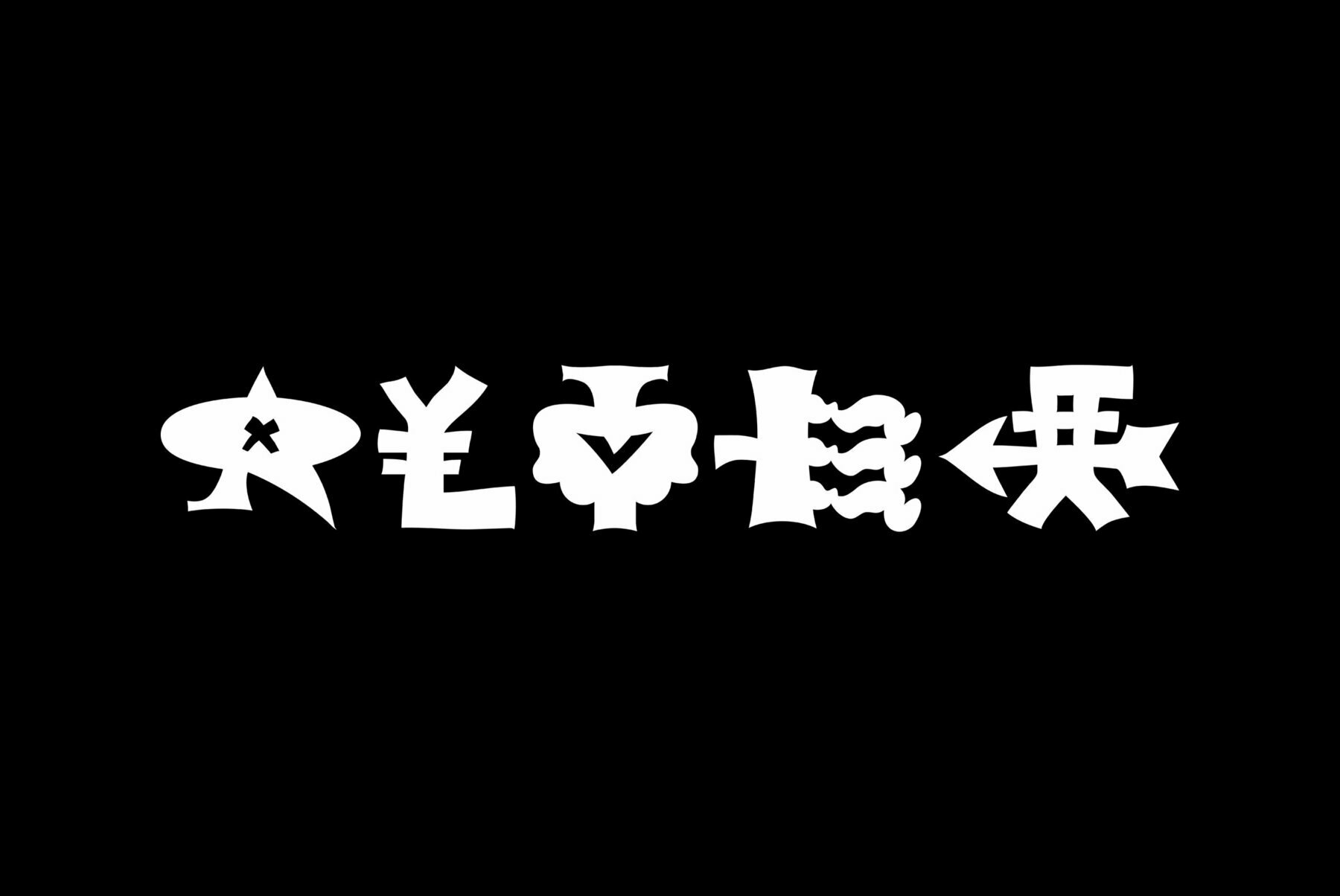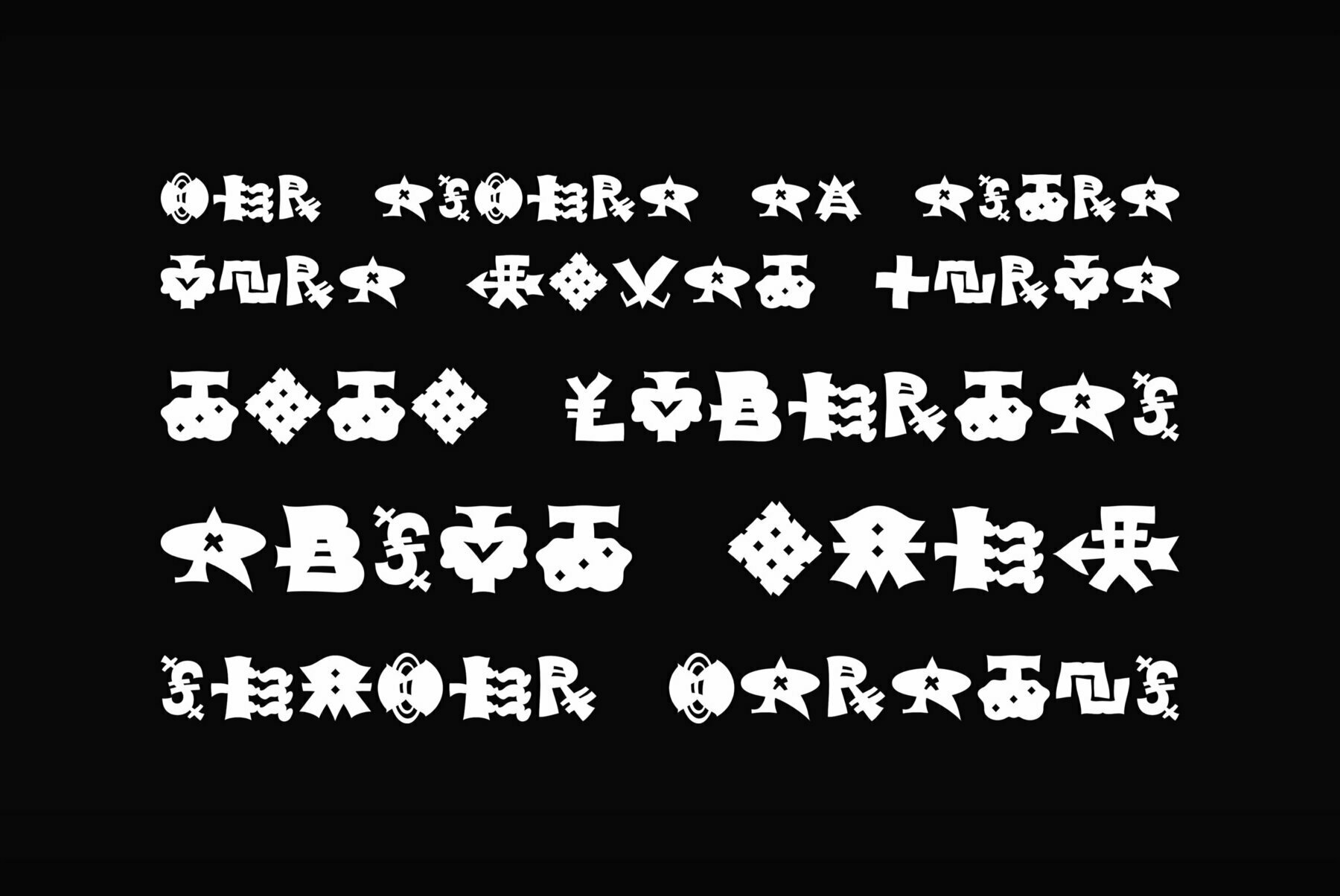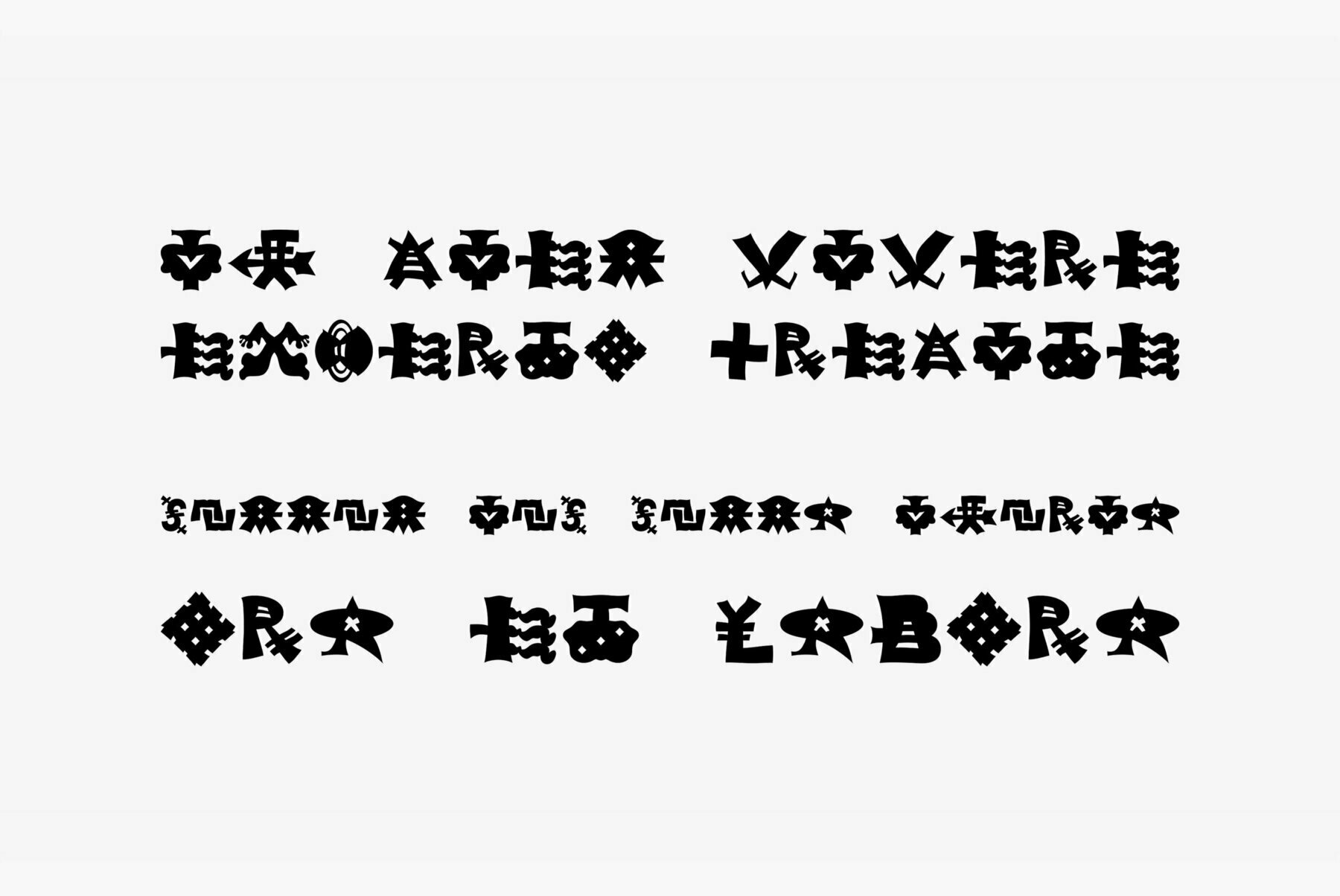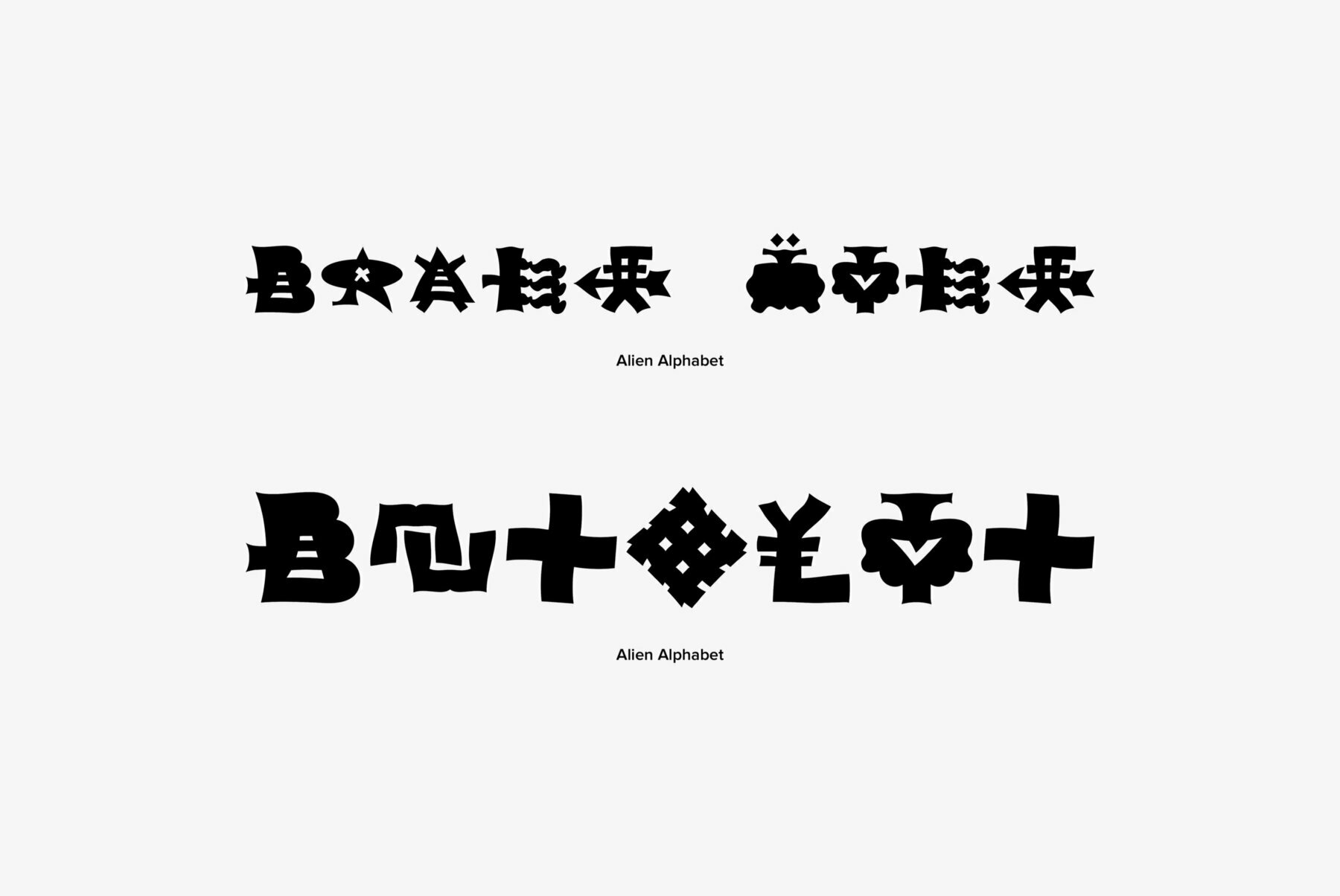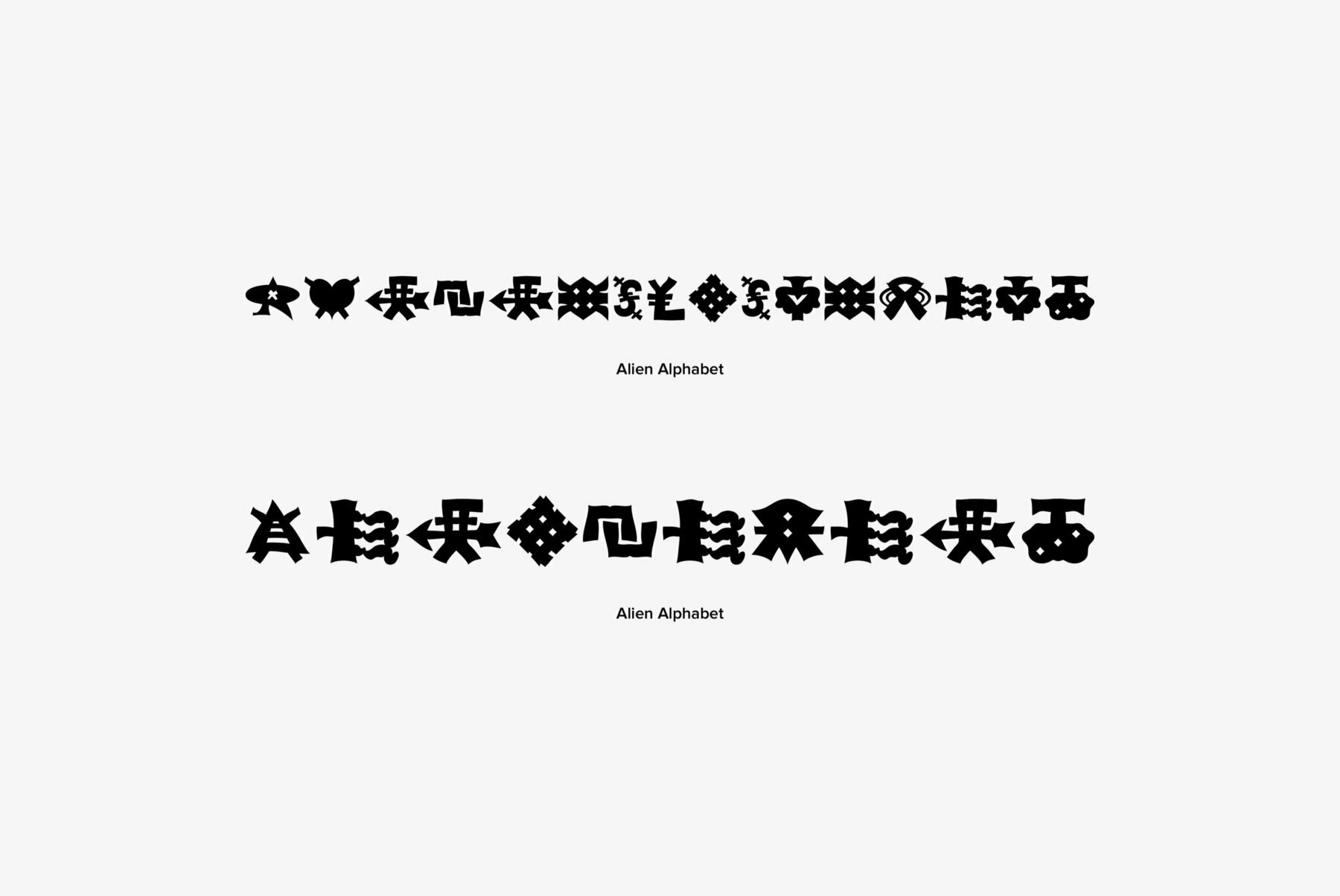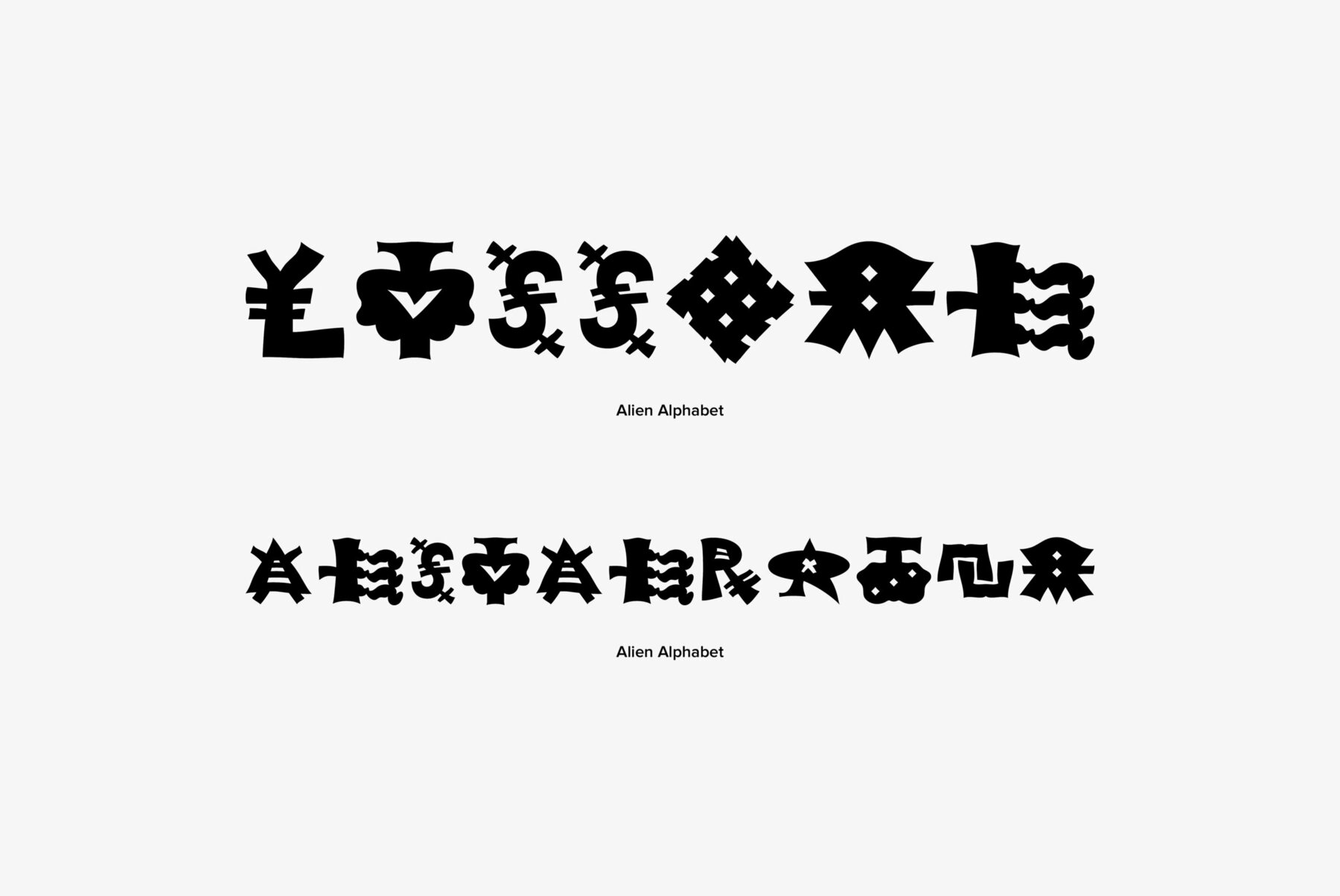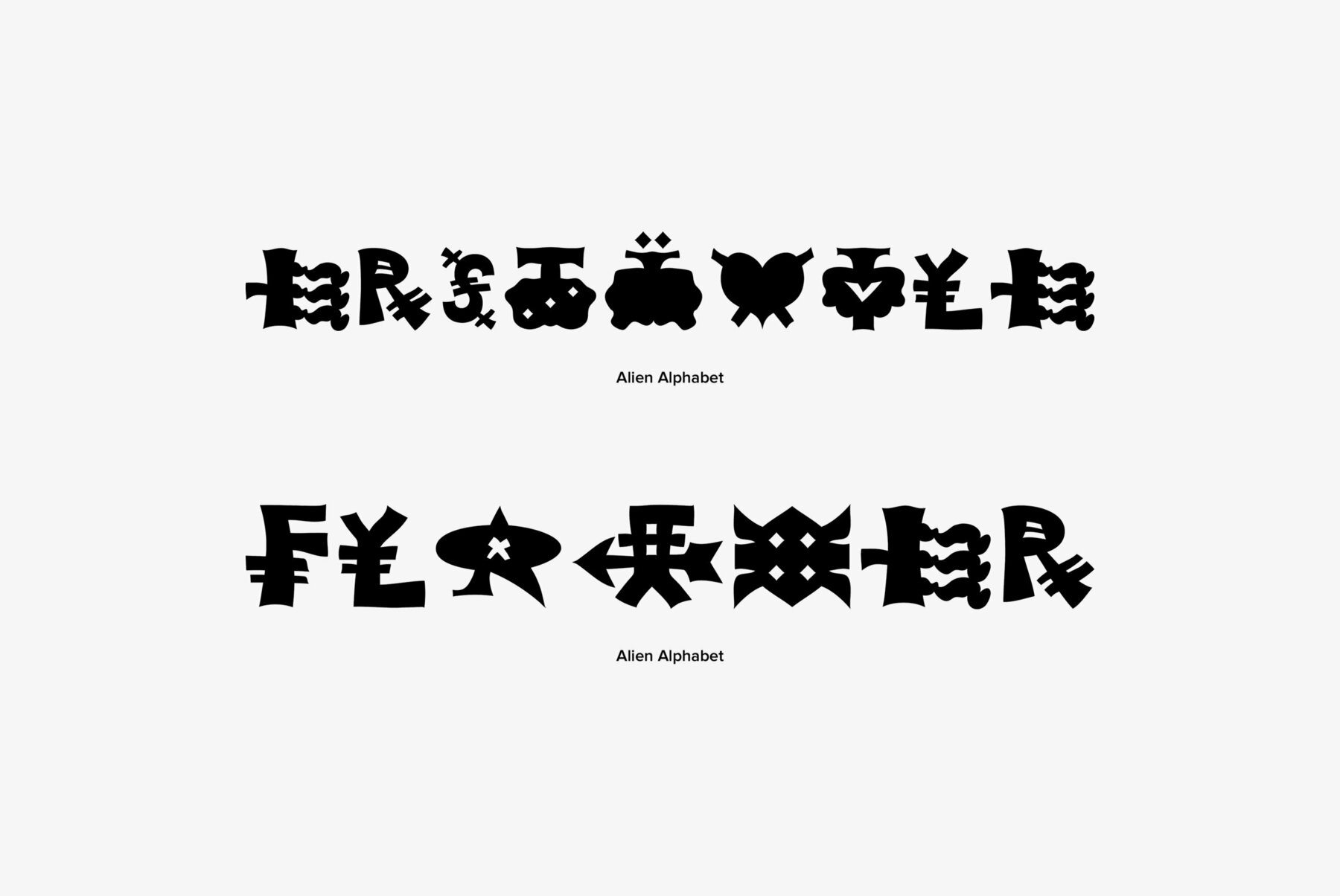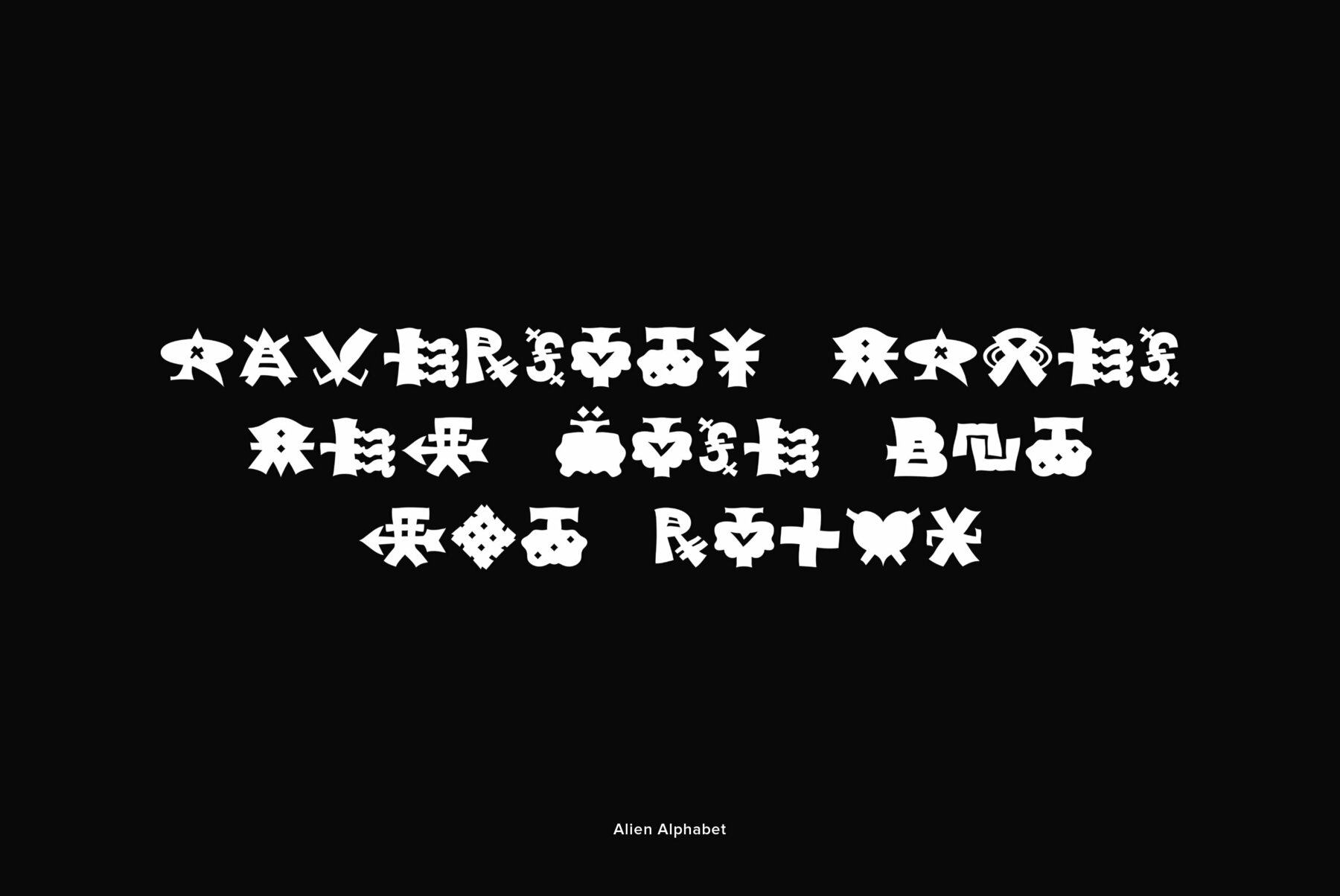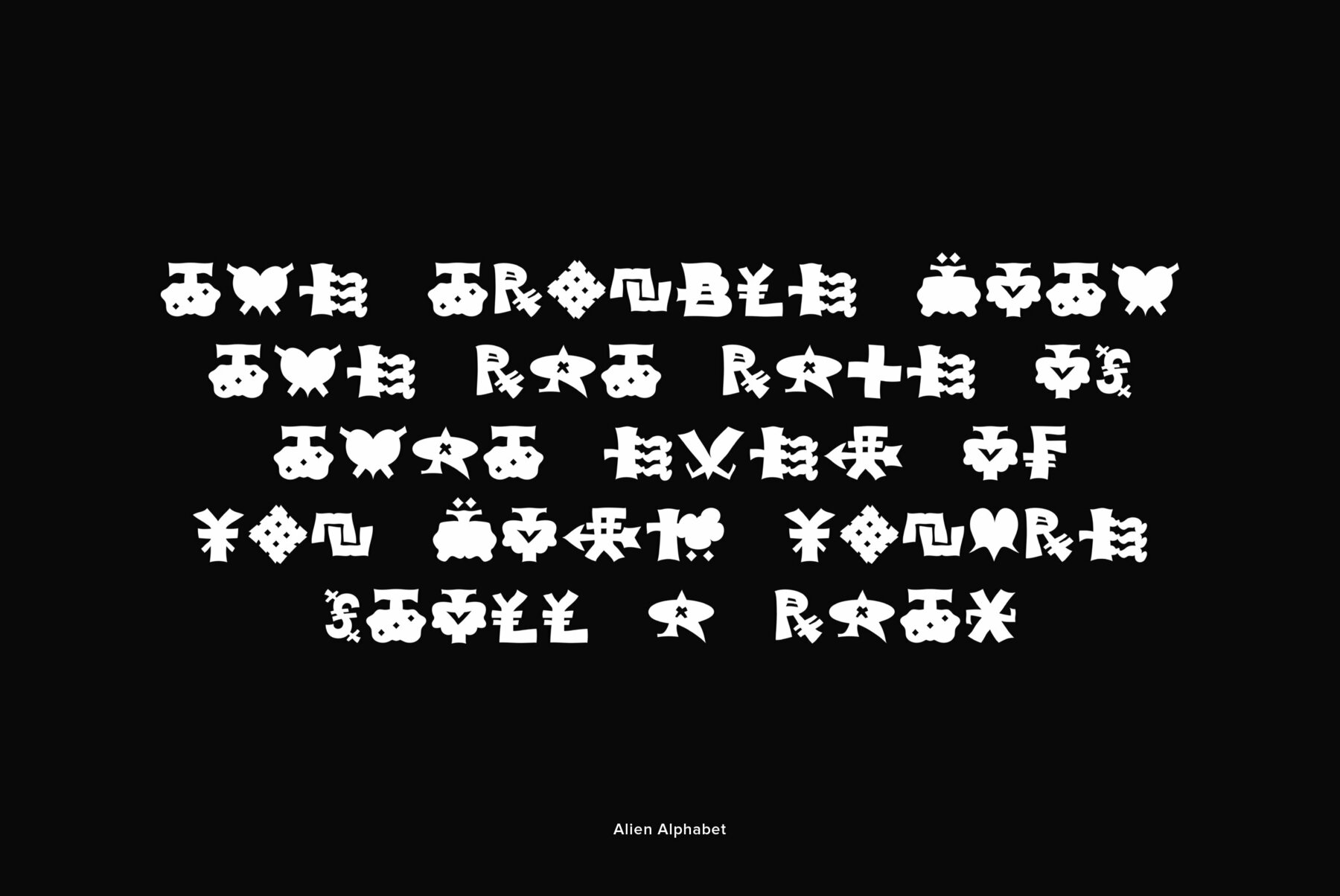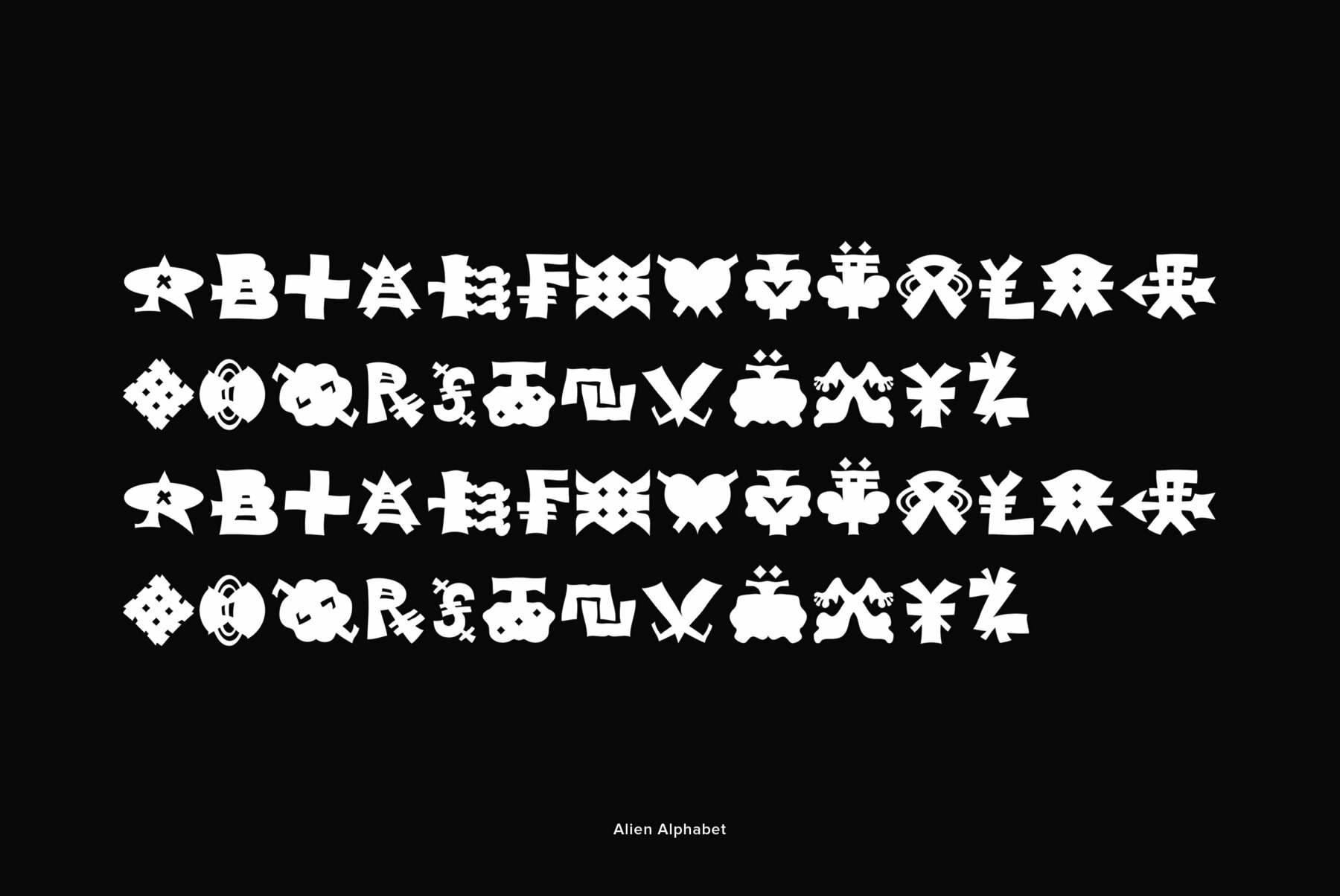
Designed in 2007 by Yury Frolov and licensed by ParaType. Alien Alphabet is inspired by the ideas of change, transformation, creative deconstruction and mutual penetration of various cultures, languages, and opposing cognitive systems, which seem to be prevalent in our 'globalized' civilization. It appears as various visual constructs -- archetypal symbolism, pieces of the world alphabets, socio-cultural icons, mathematical formulae, etc., -- broke down into pieces and were reassembled in a way that carried traces of previous meanings. However, this contradictory mutation invokes enigmatic meanings and emotions begging for further definition and interpretation. Alien Alphabet shapes arranged in linear sequential manner tend to evoke a sense of written language. The fact that a message cannot be understood does not really change its emotional appeal. Moreover, the less message can be deciphered, the more seems to be the appeal -- for it triggers our imagination. In fact, we may not want to know the actual meaning because deep inside we are afraid that this might be just another alien dry-cleaning receipt.